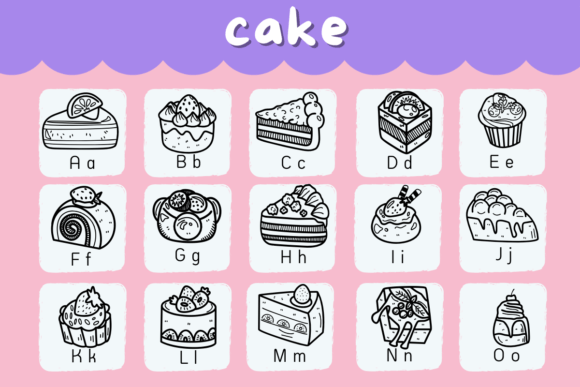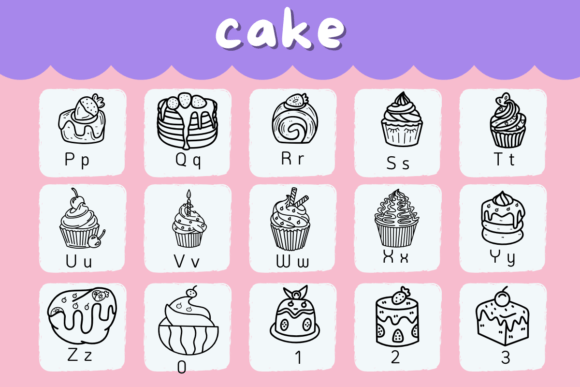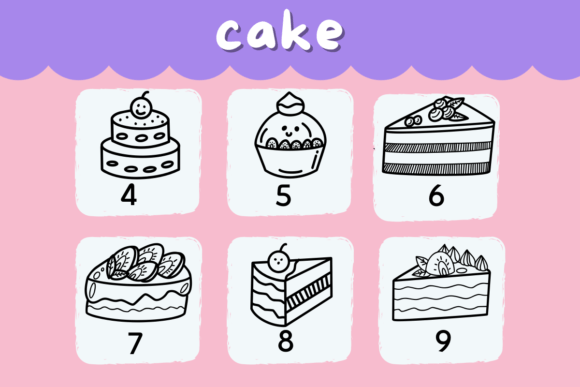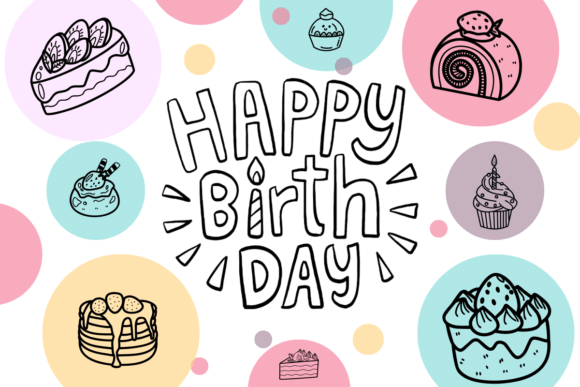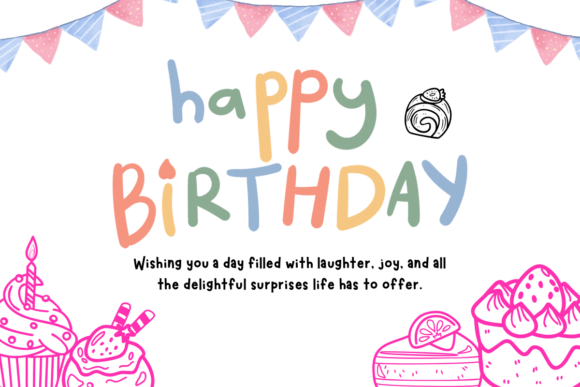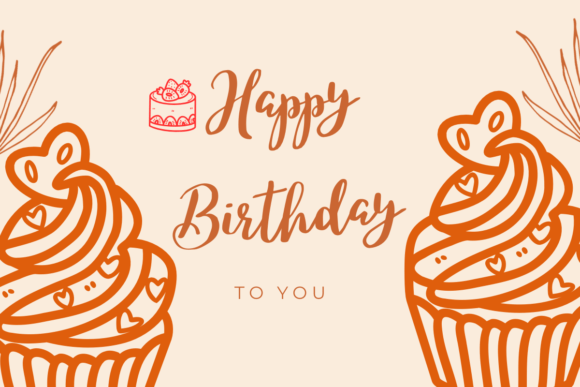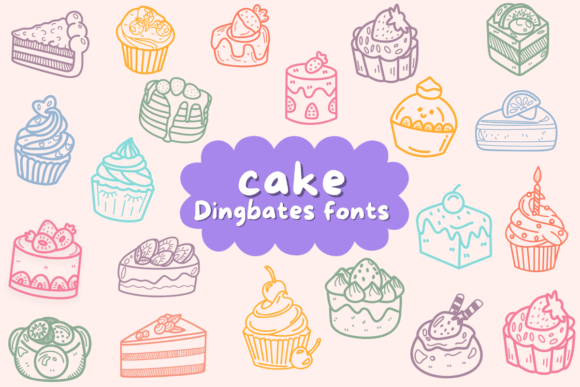
Cake Font: The Sweetest Addition to Your Design Toolbox
Are you looking for a fun and playful way to add some sweetness to your designs? Look no further than the Cake Font, a unique dingbat font that features a collection of cake images instead of letters or numbers. This delightful font is perfect for designers and crafters who want to add a touch of whimsy and festivity to their projects.
What is Cake Font?
Cake Font is a specially designed dingbat font that showcases a variety of cake images, each one more mouthwatering than the last. Instead of letters or numbers, this font features an assortment of cakes and desserts, making it the perfect addition to any design related to baking, celebrations, or sweet treats.
What Makes Cake Font So Special?
So, what sets Cake Font apart from other fonts? Here are just a few reasons why this font is a must-have for designers and crafters:
- Unique and Playful: Cake Font is a one-of-a-kind font that adds a touch of playfulness and fun to any design. The cake images are sure to bring a smile to your audience’s faces and make your designs stand out.
- Perfect for Celebrations: Whether you’re designing invitations for a birthday party, a wedding, or a baby shower, Cake Font is the perfect choice. The cake images evoke feelings of celebration and joy, making your designs perfect for any special occasion.
- Great for Baking and Dessert-related Projects: If you’re designing menus, brochures, or flyers for a bakery, café, or dessert shop, Cake Font is a great choice. The font’s cake images will make your designs look delicious and appealing.
How to Use Cake Font in Your Designs
Using Cake Font in your designs is easy and fun. Here are a few ideas to get you started:
- Invitations: Use Cake Font to create custom invitations for birthday parties, weddings, baby showers, and other celebrations.
- Menus: Add a touch of sweetness to your restaurant or bakery menus with Cake Font.
- Social Media Graphics: Use Cake Font to create fun and playful social media graphics, such as Facebook posts, Instagram stories, and Twitter headers.
- Party Decorations: Create custom party decorations, such as banners, garlands, and signs, using Cake Font.
Tips and Tricks for Getting the Most Out of Cake Font
Here are a few tips and tricks to help you get the most out of Cake Font:
- Experiment with Different Colors: Cake Font looks great in a variety of colors, so don’t be afraid to experiment and find the perfect color scheme for your design.
- Mix and Match: Combine Cake Font with other fonts to create a unique and eye-catching design.
- Use it Sparingly: While Cake Font is fun and playful, it’s best to use it sparingly to avoid overwhelming your design.
Cake Font is a fun and playful dingbat font that’s perfect for designers and crafters who want to add a touch of sweetness to their designs. With its unique cake images and easy-to-use design, Cake Font is sure to become a favorite in your design toolbox. So why wait? Download Cake Font today and start creating your own sweet designs!